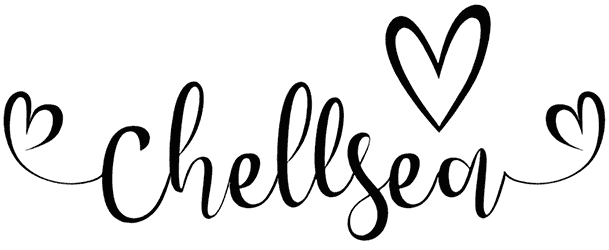
Lovely Day Font
Expecting an artistic and cursive font to cover a wide range of decorative display designs is not a far dream. Thanks to the Resource Boy website, the Lovely Day calligraphy font with its curved body is ready to give off playful vibes. Despite the lack of punctuation marks and numbers, it would be an excellent option to organize any card design, posters, invitations, apparel, and others.
Designed by: Billy Argel Fonts